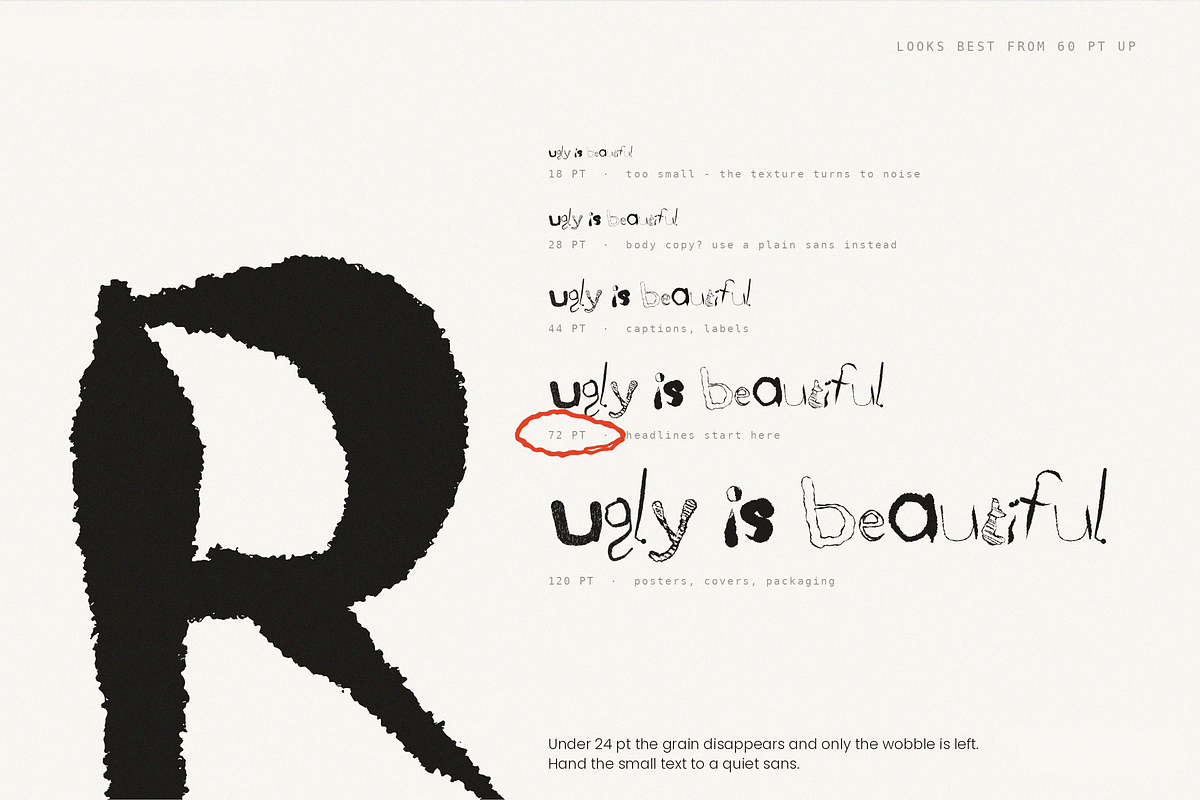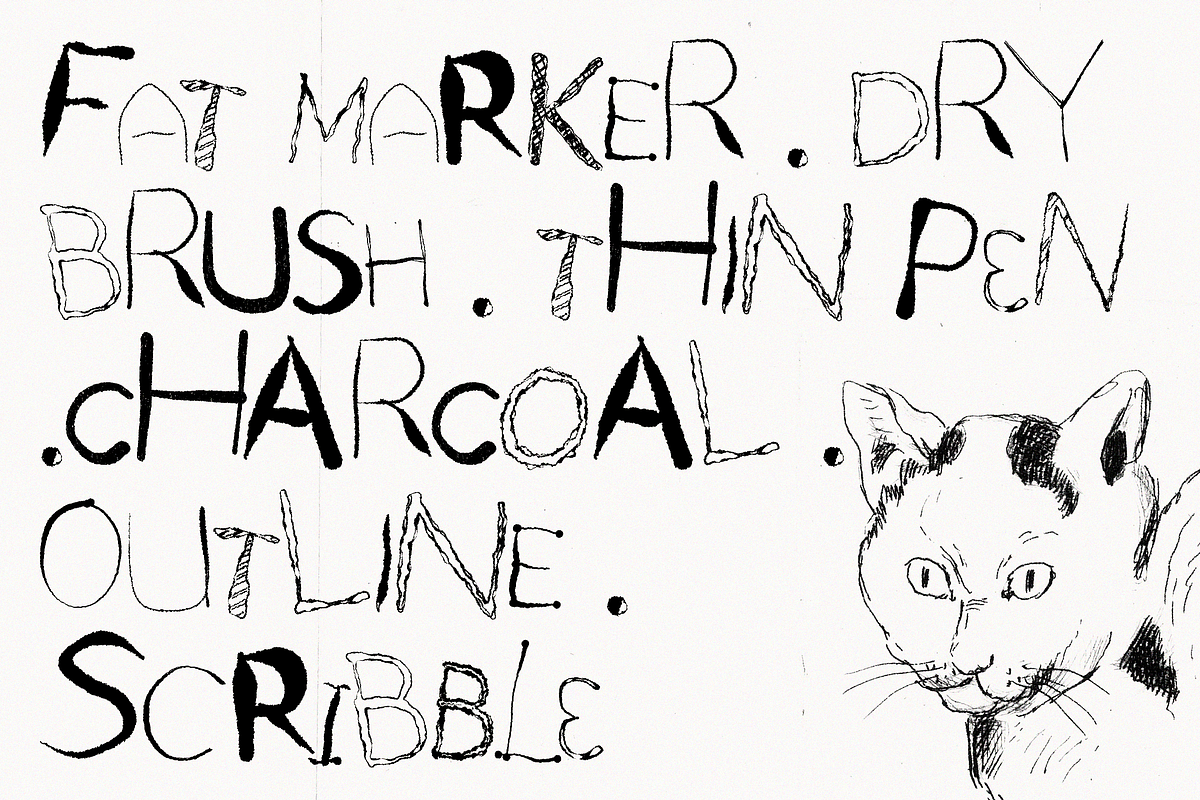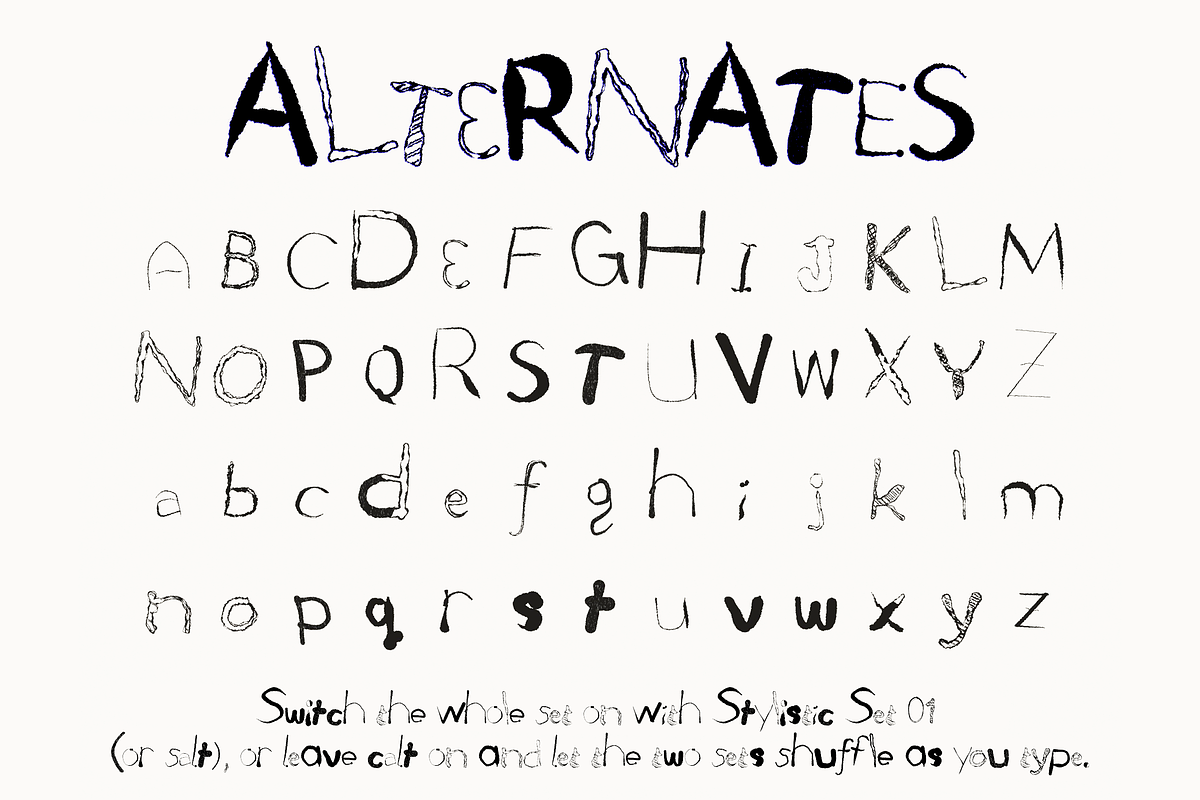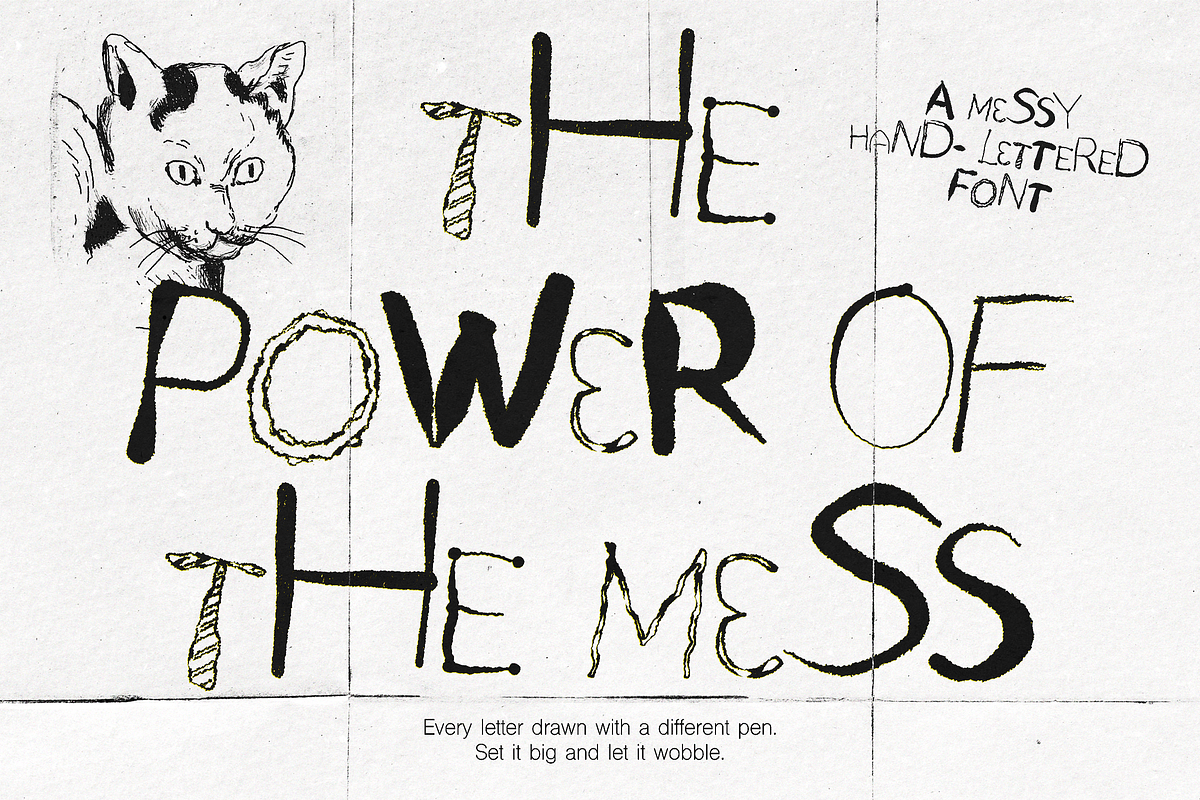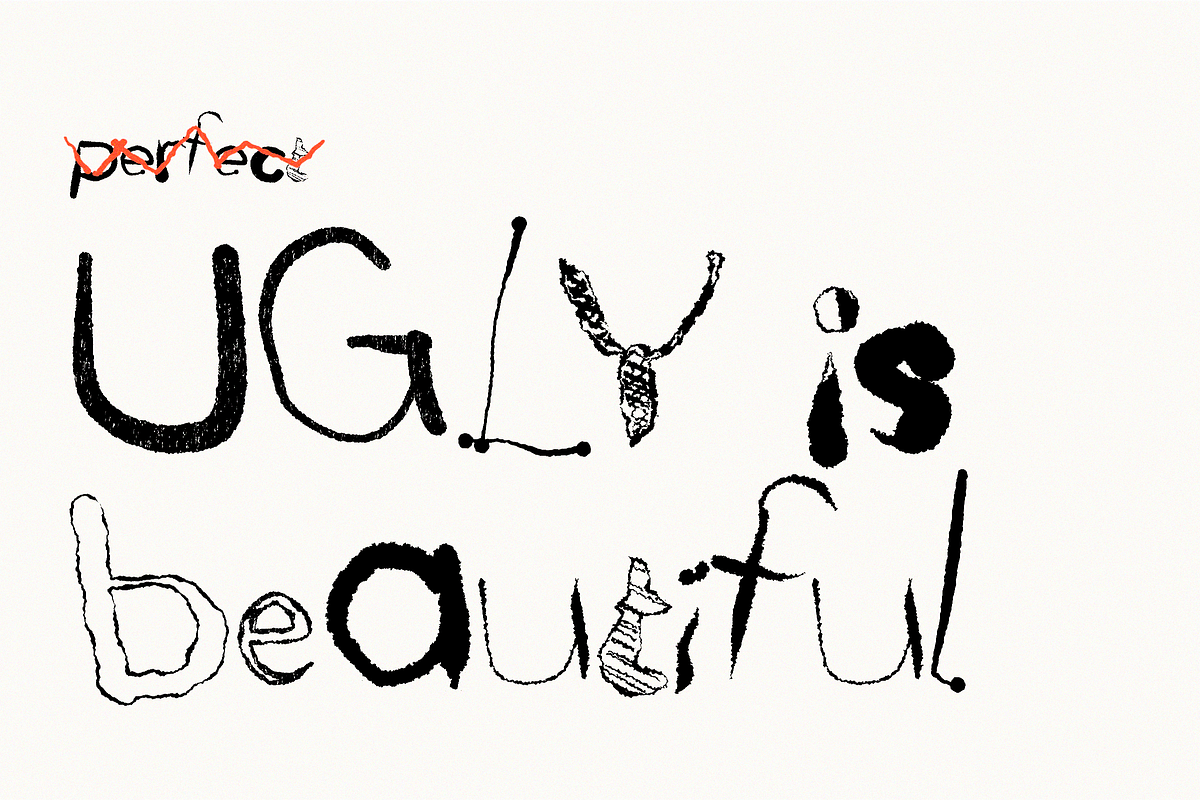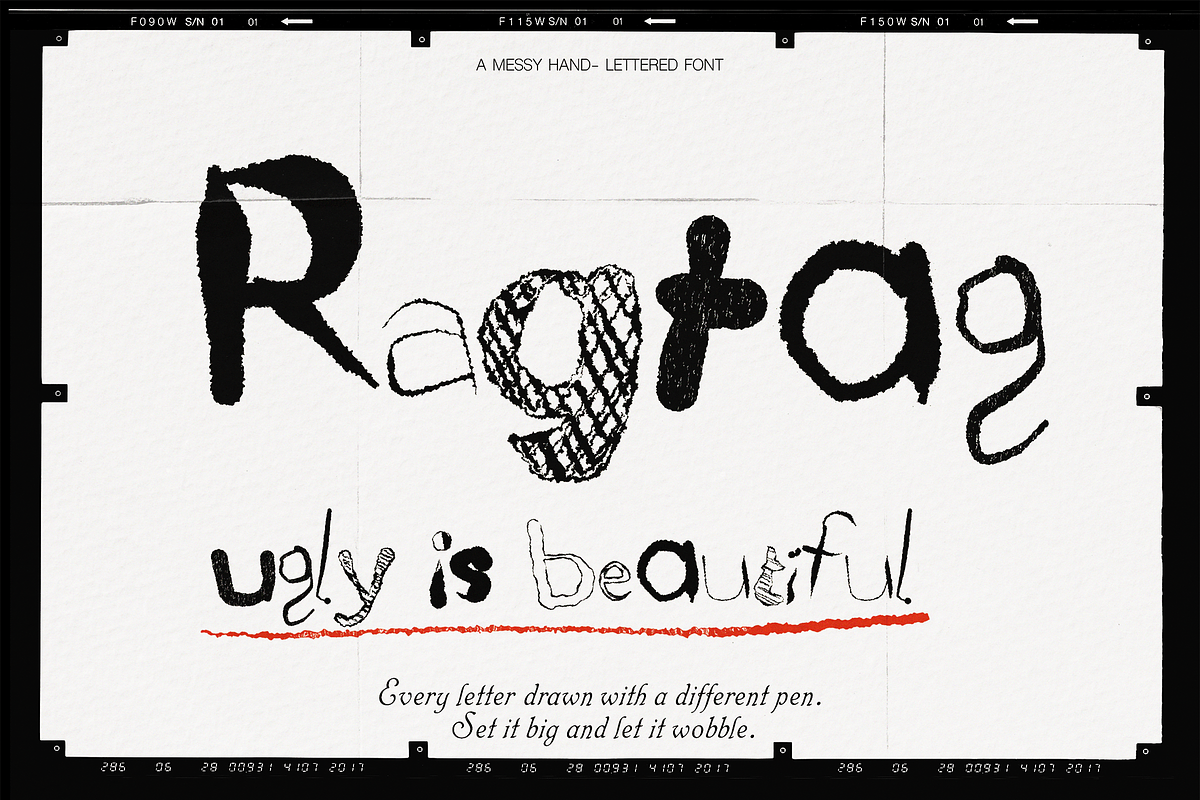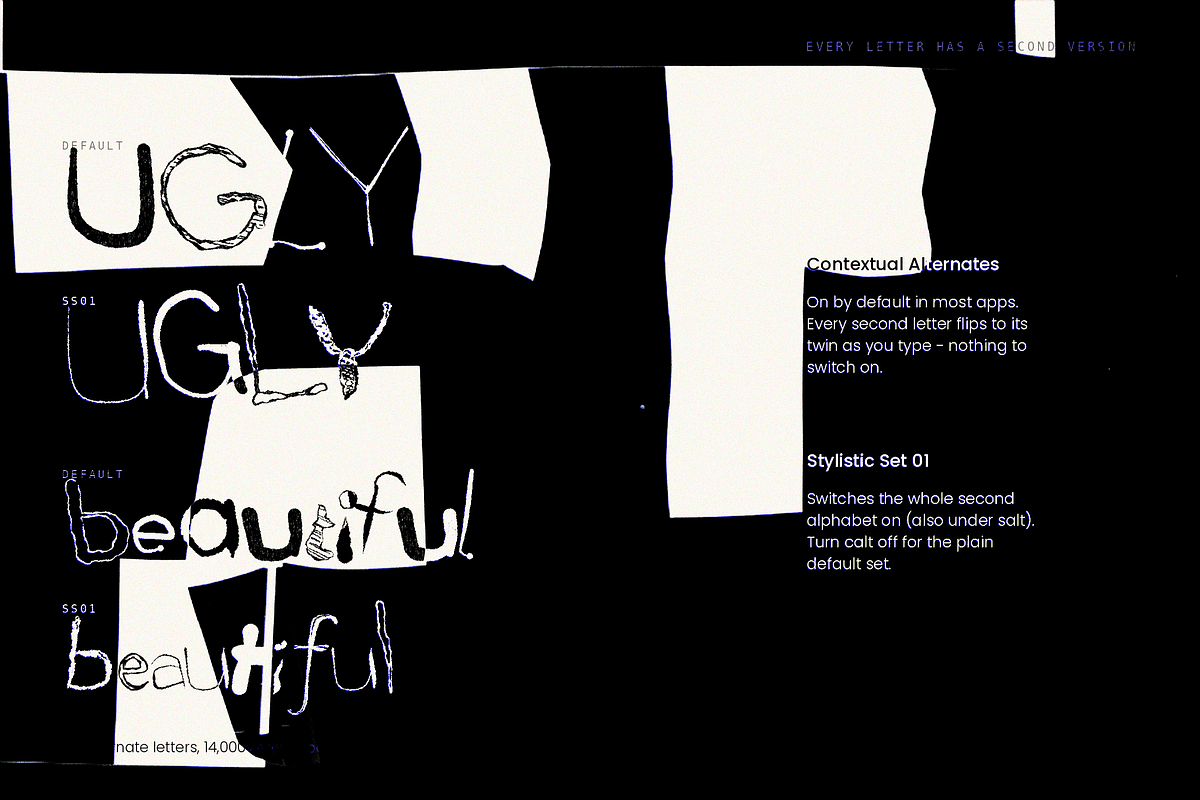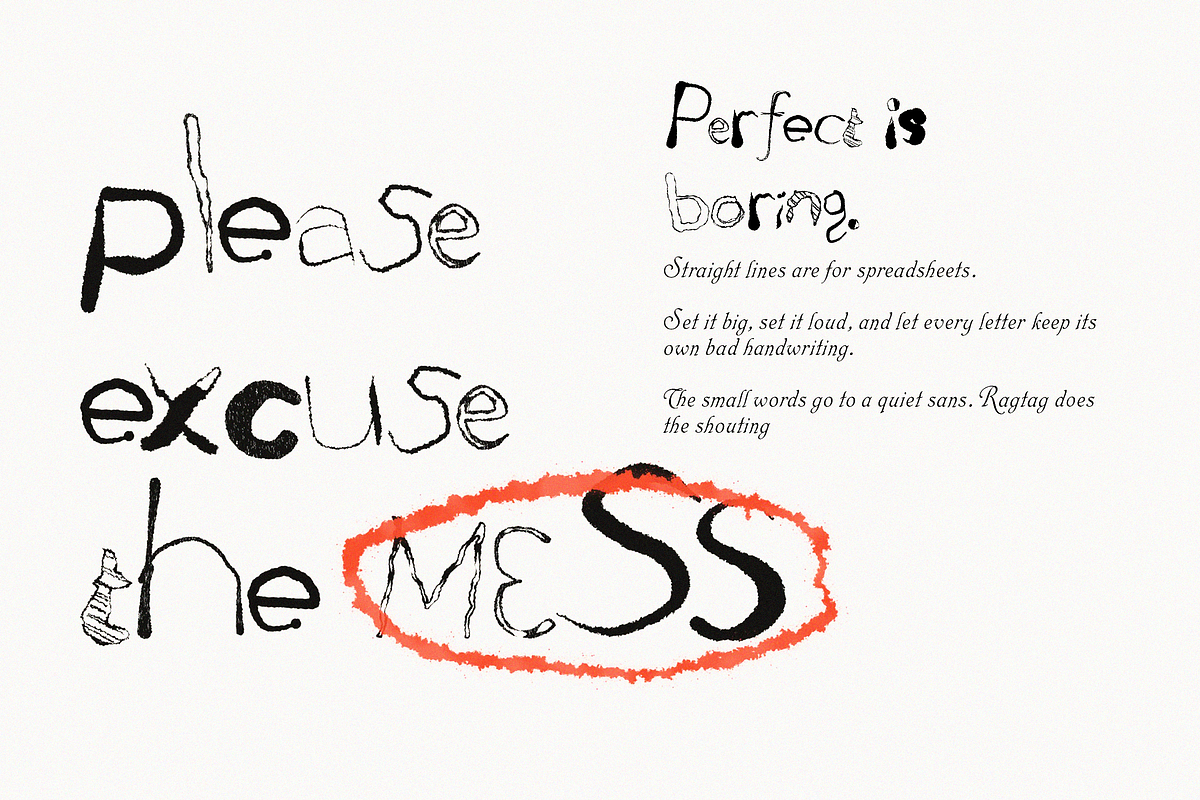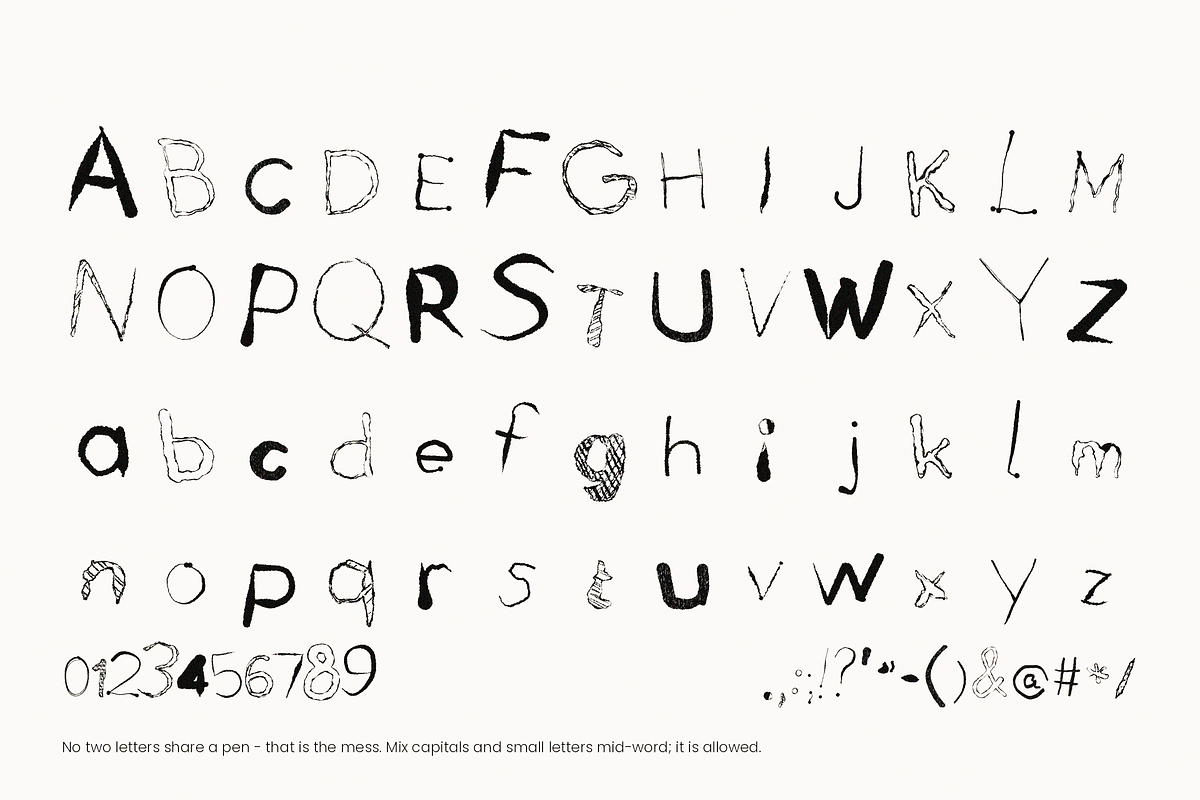
Ragtag - Messy Hand-Lettered Font
Ugly is beautiful. A scrawled, mismatched display font where no two letters share a pen.
Ragtag is a messy hand-lettered display font built on one idea: perfect is boring. Every letter was drawn with a different tool fat marker, dry brush, thin pen, charcoal, outline, scribble-fill at its own size and its own weight, then left exactly as it came out. Some letters are huge, some are skinny, some are hollow, some are hatched. Put them in a row and they bounce, overlap and argue with each other, the way real hand-lettering on a scrap of paper does.
It's made for headlines, posters, zine covers, album art, packaging, merch, social graphics, stickers, quote prints anything that should look like it was lettered by hand in a hurry and on purpose.
Every letter has a twin. The whole alphabet exists twice. Leave Contextual Alternates on (it is on by default in most apps) and Ragtag flips every second letter to its alternate as you type, so words never repeat the same shape twice. Switch on Stylistic Set 01 to use the entire second alphabet, or turn calt off for the plain default set. No OpenType panel in your app? The alternates are also PUA-encoded, so you can pick them from the glyph panel in Canva, Cricut Design Space, Silhouette Studio or Character Map.
A–Z, a–z, 0–9 and 16 punctuation marks
52 alternate letters (Stylistic Set 01 / Stylistic Alternates), PUA encoded
Contextual Alternates that auto-shuffle the two sets
Textured outlines the grain and rough edges are in the vectors, not a bitmap
Set it big. Ragtag looks best from 60 pt up; under 24 pt the texture turns to noise. Hand the small text to a plain sans.
Tighten the leading the bounce fills the gaps.
Mix CAPS and small letters mid-word. It's allowed.
One ink, one accent colour, lots of empty paper. Ugly needs room.
Pair it with a quiet sans (Poppins, Inter, Helvetica) and let Ragtag do the shouting.